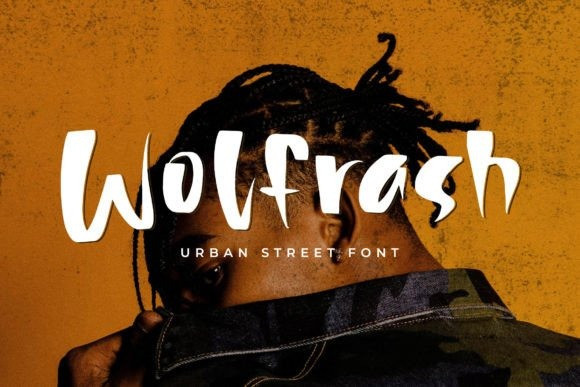
Wolfrash Font
Wolfrash – Urban Street Font , from Glorytype Studio, suitable for any projects such as: logos, branding projects, homeware designs, product packaging, mugs, quotes, posters, shopping bags, t-shirts, book covers, name card, invitation cards, greeting cards, label, photography, watermark, special events, and all your other lovely projects that need a beautiful script taste.